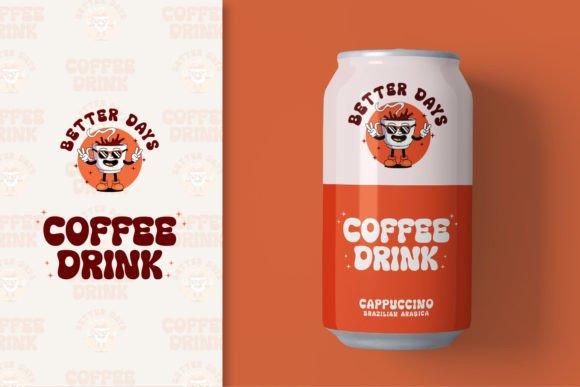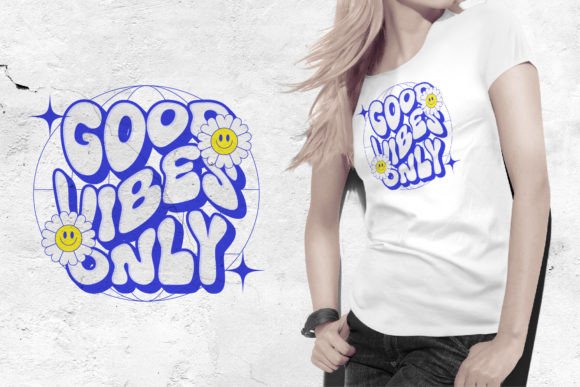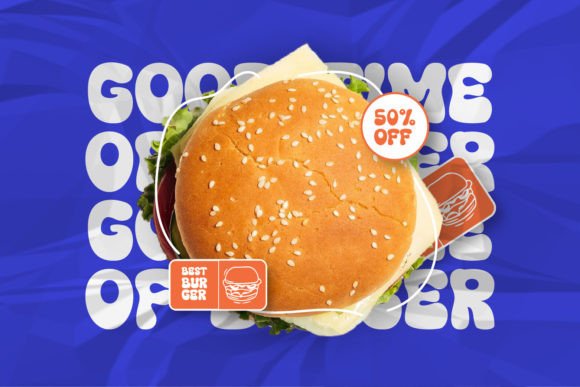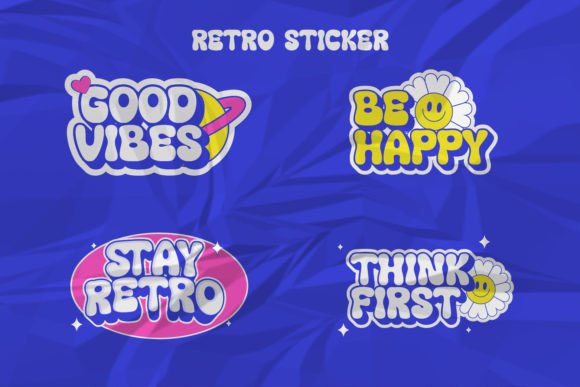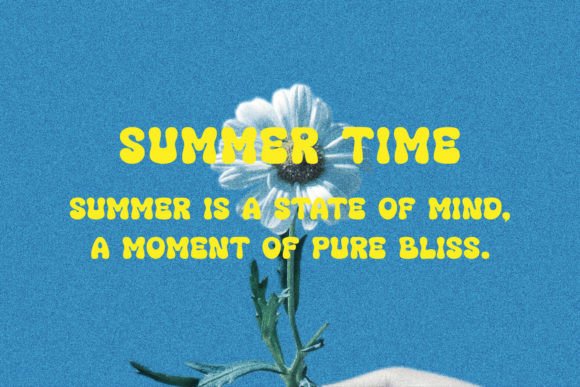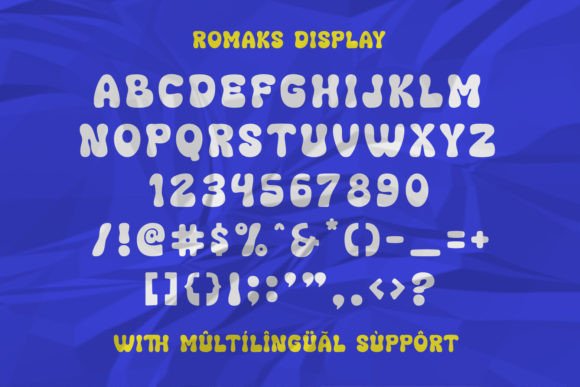
Introduction to Romaks Font
Embrace the captivating charm of the past with Romaks Display, a retro display font that seamlessly blends vintage aesthetics with modern sensibilities.
Inspired by the bold typography of the 70s, Romaks Display brings a touch of nostalgia and personality to your creative projects .
Key Features of Romaks Font